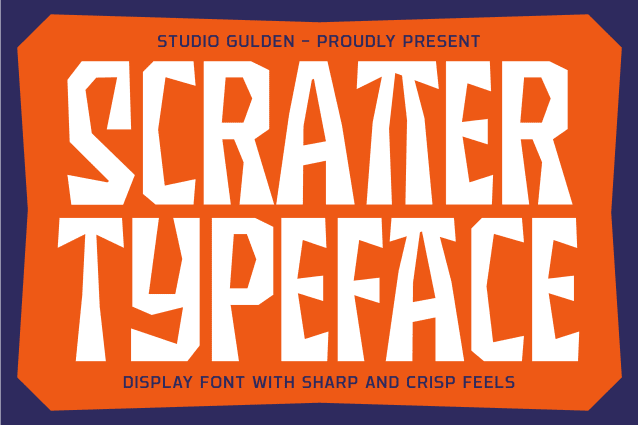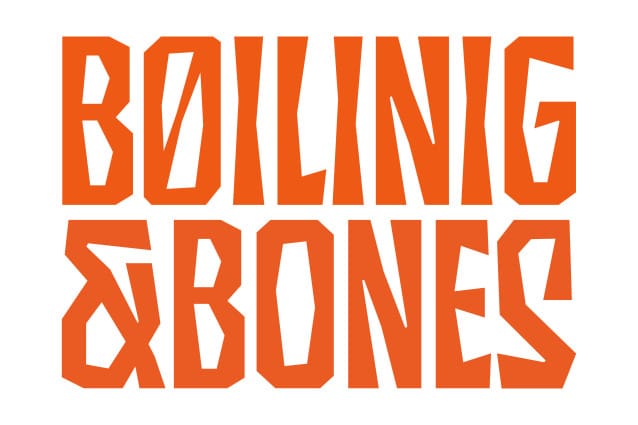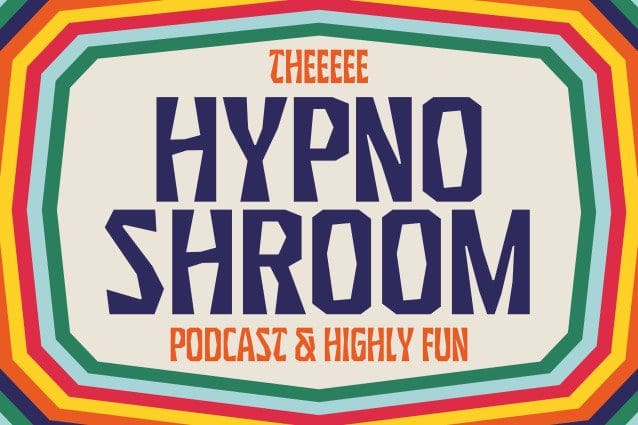
SG Scratter Font
SG Scratter Font is a dynamic and eye-catching display font that is sure to make any design stand out. With its sharp and crisp edges, this font exudes a sense of boldness and confidence that is perfect for headlines, logos, and branding projects.